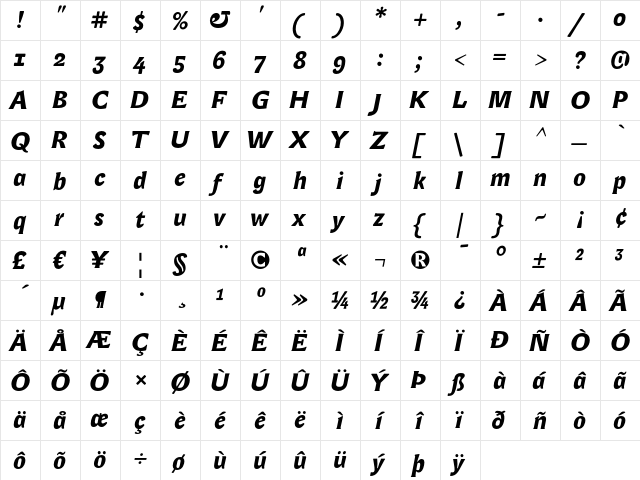
Lexon Gothic Bold Italic
Design Context for Lexon Gothic Typeface
Lexon Gothic has the quiet confidence of well-executed sans-serif typography: versatile, unobtrusive, and dependable at any size. The dynamic lean of this cut emphasises speed and emphasis in any layout. The heavy weight commands attention and anchors typographic hierarchies.
Well-suited to navigation labels, product packaging, and anywhere legibility at scale is essential.
Font Pairing: Use Lexon Gothic for headlines alongside a lighter-weight sans or serif for body copy to establish clear visual hierarchy.
Pro Tip: Use Lexon Gothic for UI labels, navigation, and short-form body copy where clean legibility is the priority.